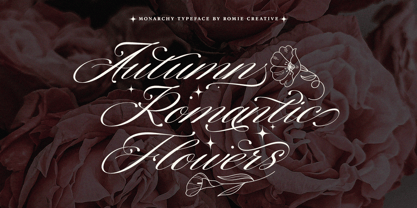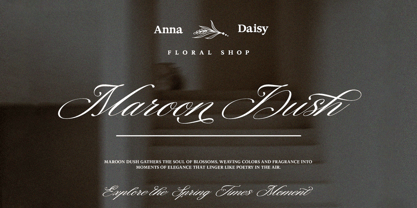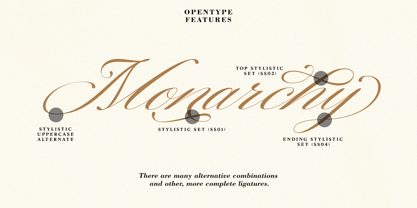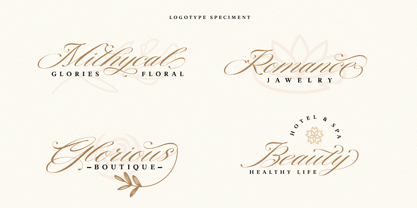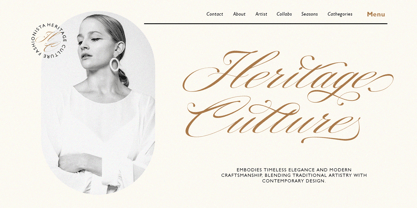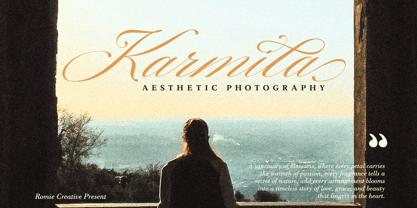
Monarchy Script
by Romie Creative
The Monarchy Script Font Family was designed by Romi Rahmadi and published by Romie Creative. Monarchy Script contains 1 styles.
Monarchy Script font that comes with very beautiful changing characters, a kind of classic decorative copper script with a modern touch, designed with high detail to bring stylish elegance. Monarchy Script is attractive as a typeface that is smooth, clean, feminine, sensual, glamorous, simple and very easy to read, because there are many fancy letter connections. I also offer a number of viable style alternatives for many letters. The classic style is perfect to be applied in various formal forms such as invitations, labels, restaurant menus, logos, fashion, make up, stationery, novels, magazines, books, greeting / wedding cards, packaging, labels or any type of advertising purpose. Monarchy Script is encoded with Unicode PUA, which allows full access to all additional characters without having special design software. Mac users can use Font Book, and Windows users can use Character Map to view and copy one of the extra characters to paste into your favorite text editor / application. If you need help or have questions, please let me know. I'm happy to help. Thanks & Happy Designing!